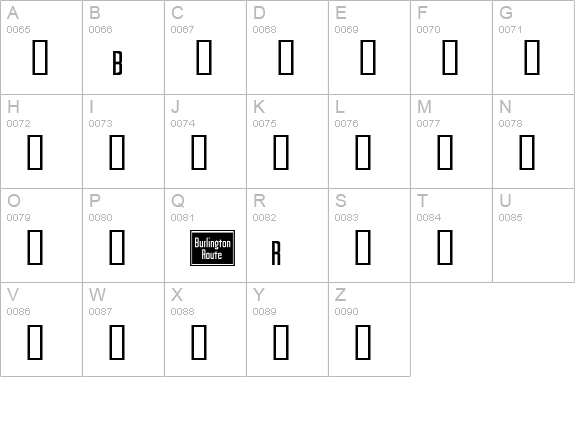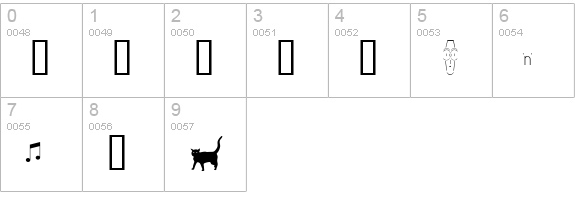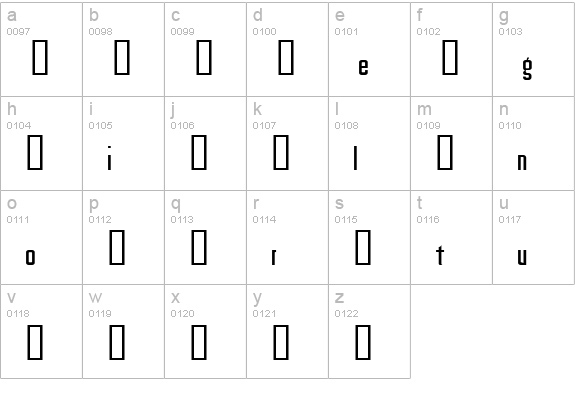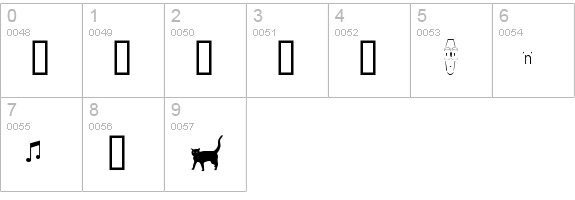
Burlington Font Details
Burlington font is a versatile and elegant typeface that exudes sophistication and charm. With its timeless design and classic appeal, Burlington is perfect for a wide range of design projects, from branding to editorial layouts. This font features clean lines and a balanced proportion that make it easy to read and visually pleasing. One of the best things about Burlington font is that it is free to download at FontsMarket.com. This means that you can easily access this high-quality font without any cost, making it a valuable addition to your font collection. Whether you are a designer looking for a stylish font to elevate your projects or a business owner in need of a distinctive typeface for your branding, Burlington font is a fantastic choice that won't break the bank. Download Burlington font today and elevate your designs with its timeless beauty and versatility.